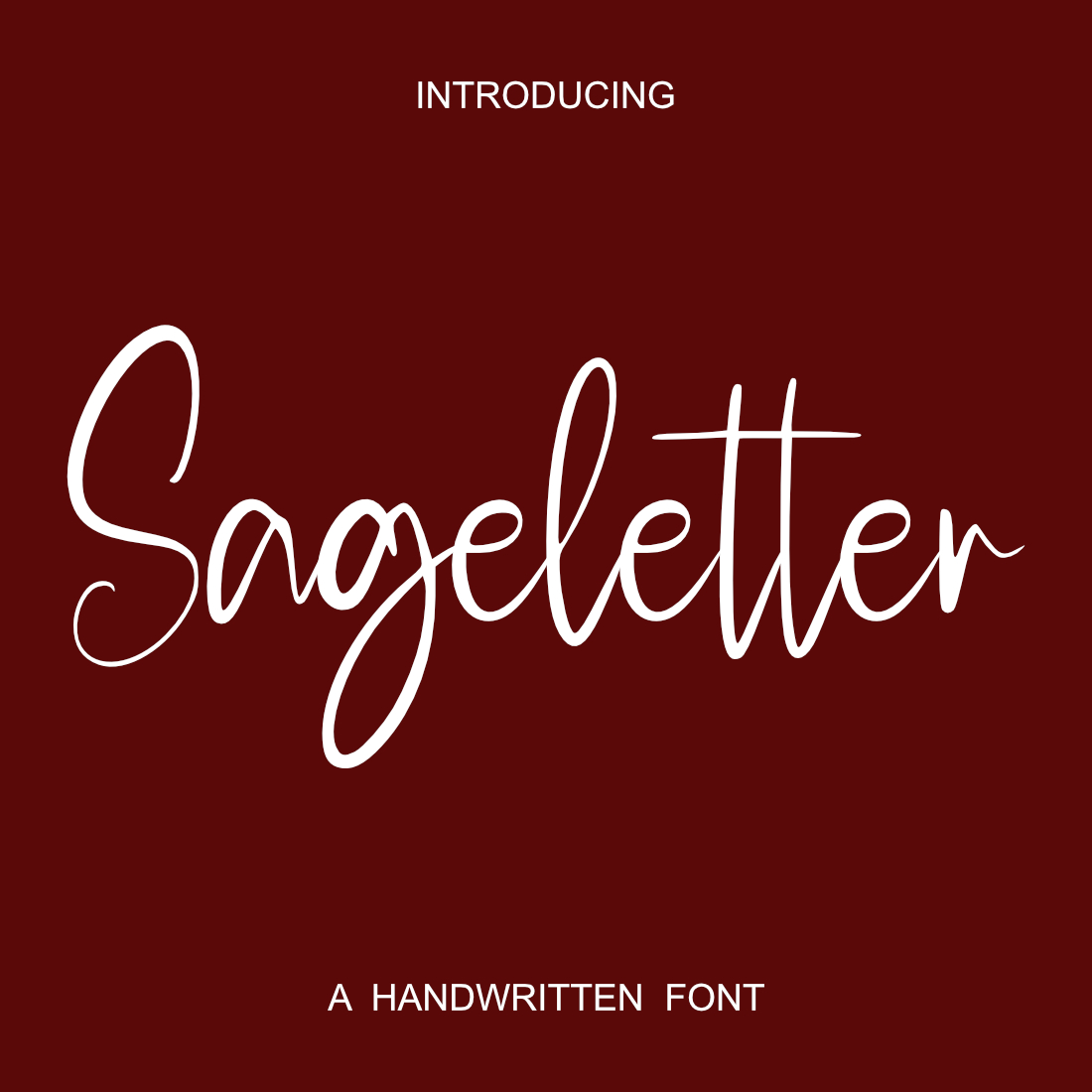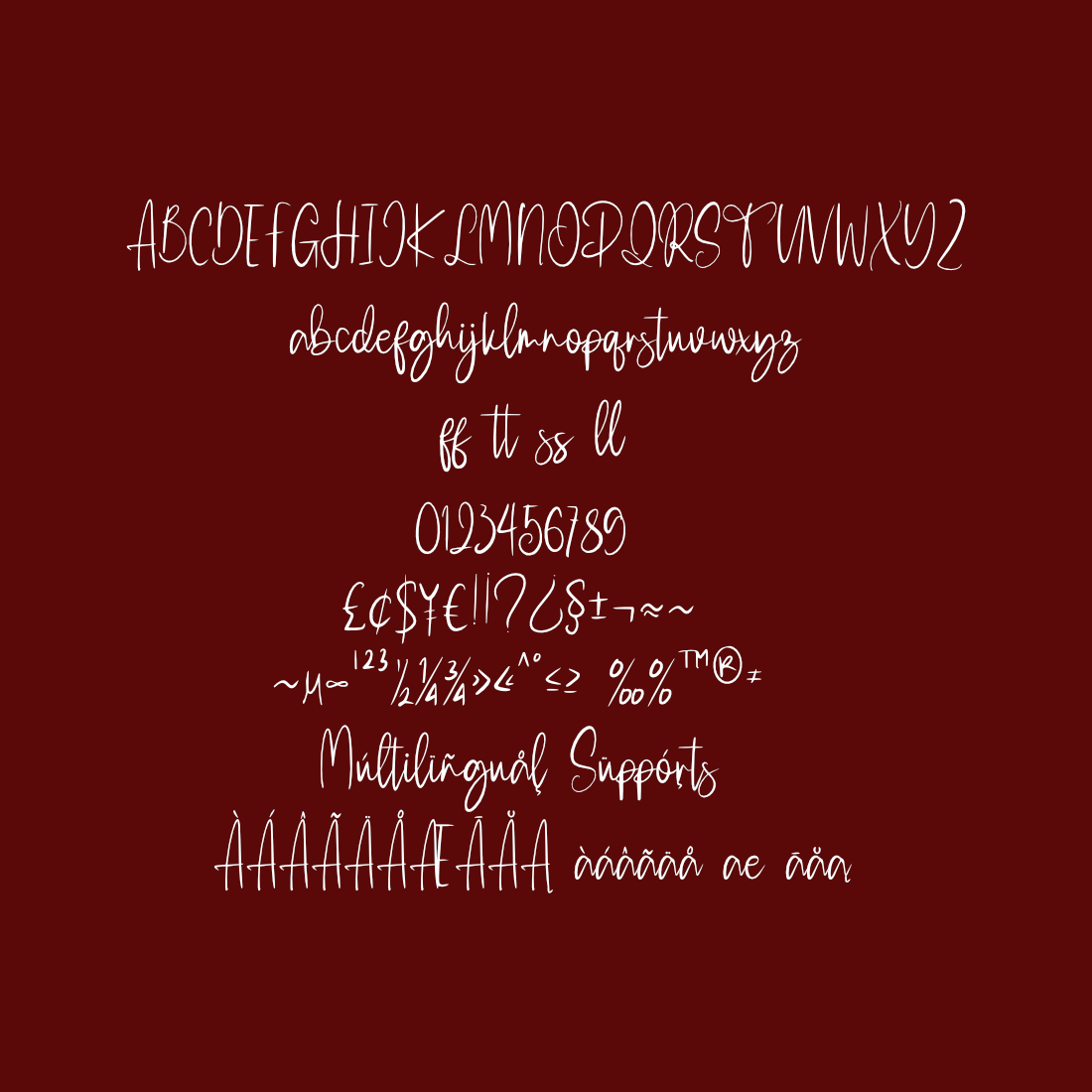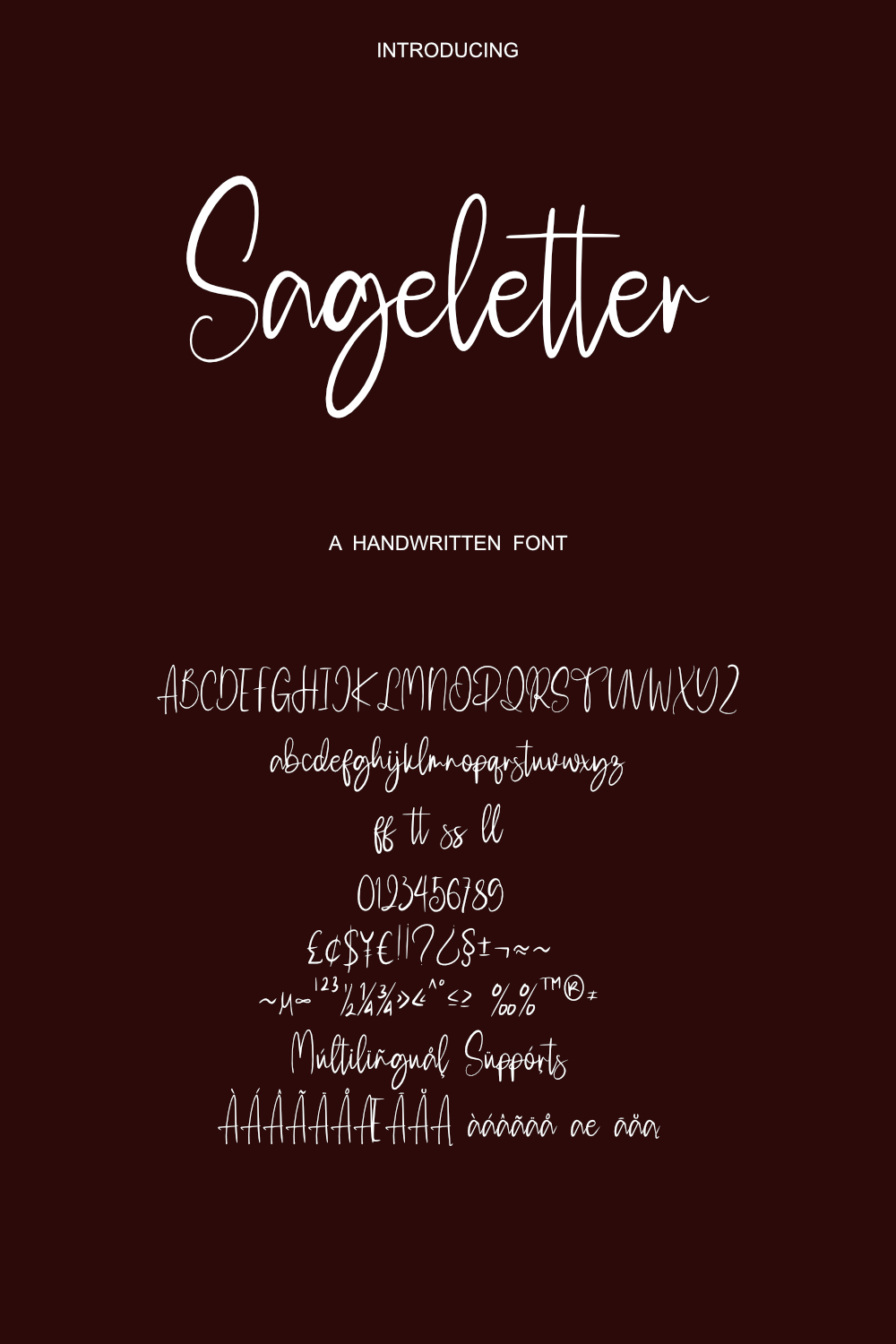
Sageletter is a graceful handwritten script font that blends timeless elegance with a touch of natural charm. Inspired by the calm flow of ink on paper, Sageletter captures the essence of thoughtful lettering — soft, smooth, and effortlessly stylish.
Whether you’re designing wedding invitations, branding materials, social media graphics, or heartfelt quotes, Sageletter adds a warm, personal touch with its flowing curves and delicate ligatures. It’s ideal for creators who value both beauty and clarity.